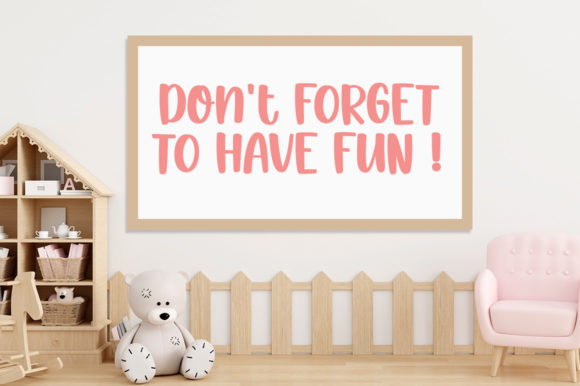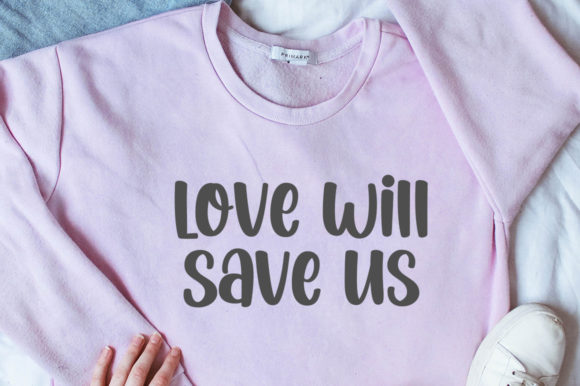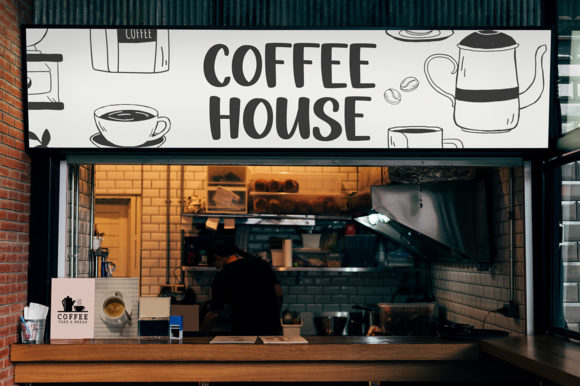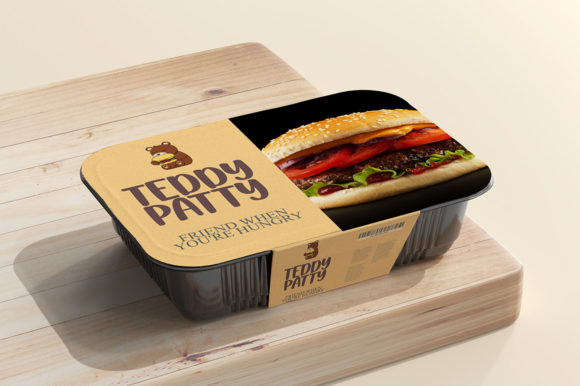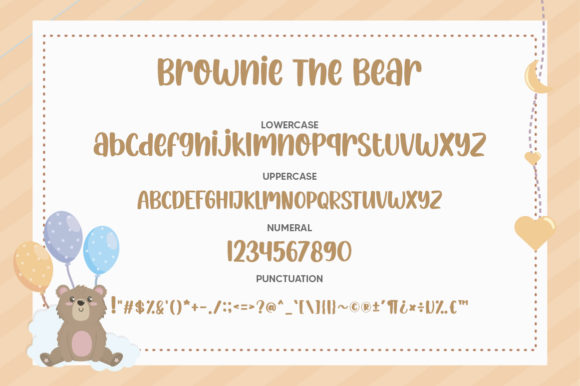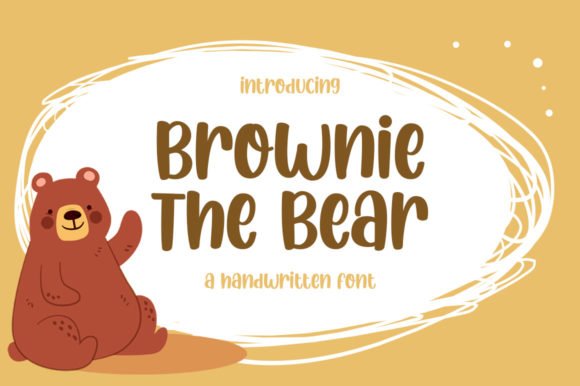
The Perfect Font for Chalkboard Charm
As a designer, have you ever found yourself rummaging through your font collection, searching for that perfect combination of rustic charm and educational flair? I know I have! There’s something about creating chalkboard quotes and teaching materials that requires a font that’s both authentic and eye-catching.
That’s where Brownie the Bear Font comes in – a delightful display font that’s specifically designed to add a personal and realistic feel to your designs. With its adorable bear-inspired design, this font is perfect for all your educational and creative projects. Whether you’re creating lesson plans, classroom decor, or simply want to add a touch of whimsy to your designs, Brownie the Bear Font is sure to be a valuable addition to your toolkit.
Brownie the Bear Font Key Features
- Font Family: Brownie the Bear, a cute and playful bear-themed font.
- Unique Characteristics: Features a charming and whimsical design, with rounded edges and a friendly appearance, making it perfect for children’s books, nursery rhymes, and other fun projects.
Brownie the Bear Font Review
Overall, I think the Brownie the Bear Font is a cute and playful addition to any design project. It’s perfect for creating a friendly and approachable atmosphere, especially in children’s content or food-related branding.
- Unique and memorable design: The bear character incorporated into the font is sure to grab attention and leave a lasting impression.
- Wide range of glyphs: The font includes a variety of symbols and characters, making it suitable for a wide range of applications.
- Highly customizable: The font offers many options for customization, allowing designers to tailor it to their specific needs.
- Limited legibility: The playful design of the font can make it difficult to read, especially in smaller sizes or at a distance.
- Lack of sophistication: The font’s casual, childlike feel may not be suitable for more formal or professional branding.
- May not be suitable for complex text: The font’s design can make it difficult to distinguish between certain letters or words, particularly in longer blocks of text.
Overall, I think the Brownie the Bear Font is a fun and creative option for designers looking to add a playful touch to their projects. However, it may not be the best choice for every project, and designers should carefully consider its limitations before using it.
Tips for Getting the Most Out of Brownie the Bear Font
Use Brownie the Bear Font to create a fun and playful atmosphere in your designs.
Combine Brownie the Bear Font with other fonts to create a unique and eye-catching look.
Use Brownie the Bear Font for titles, headings, and other text elements that need a touch of personality.
Brownie the Bear Font is perfect for:
Children’s book illustrations
Party invitations and decorations
Food and beverage branding
Education
Alternatives to Brownie the Bear Font
Pacifico is a beautiful, elegant script font that works well for invitations, wedding designs, and any other project that requires a touch of sophistication. It’s ideal for designers who want a more refined and delicate look compared to the playful Brownie the Bear Font.
Comparison: While Brownie the Bear Font is bold and whimsical, Pacifico is more understated and refined. Pacifico is a better choice for projects that require a more mature and elegant tone.